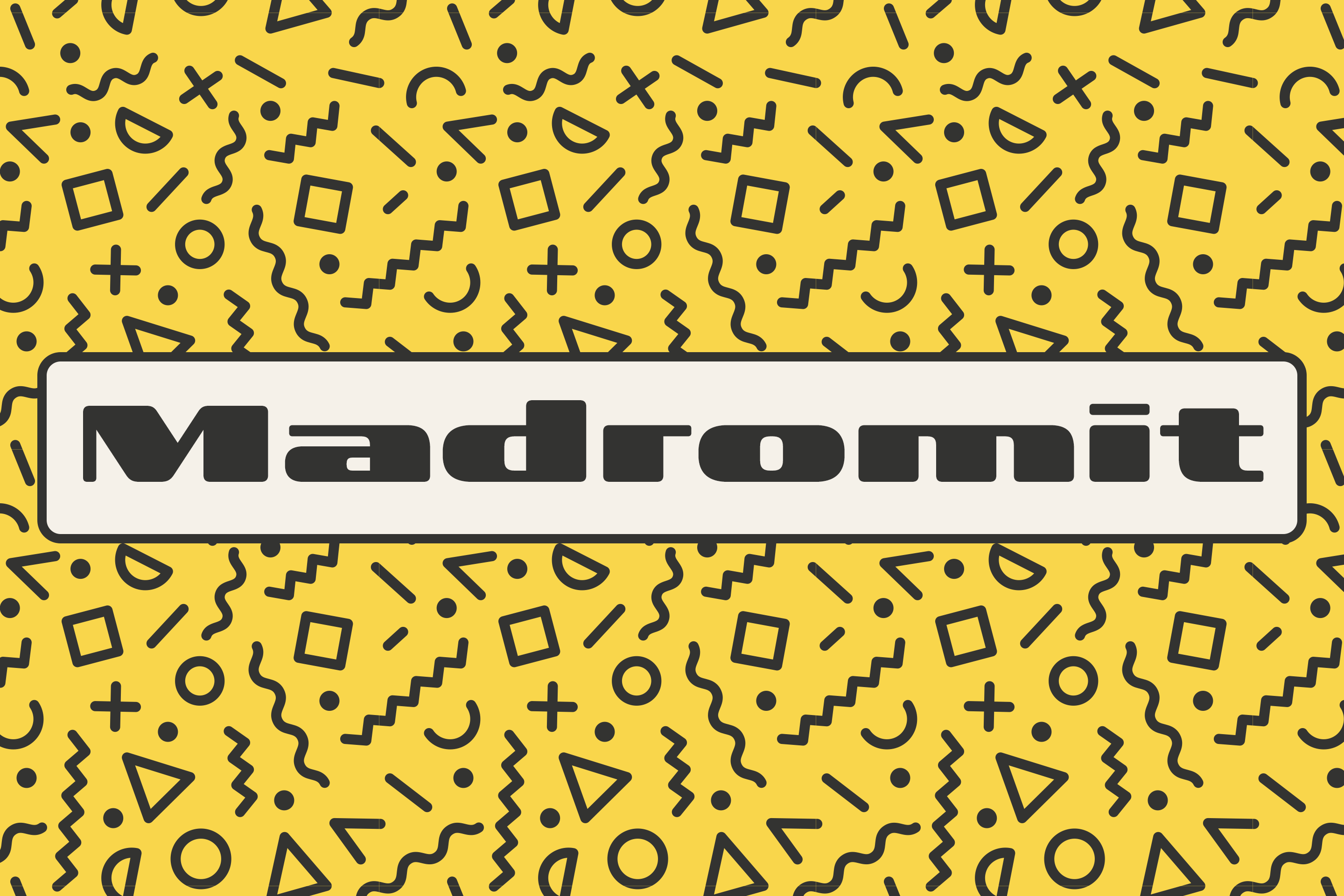
Madromit
Madromit is a font family. This typeface has five styles and was published by Dharma Type.
Madromit (pronounced ma-do-ro-mi) is a nostalgic display typeface inspired by the vibrant era of 1980s–1990s computer advertisements—a time many consider the most exciting in the history of digital technology. This style, often referred to as Primitive Digital Design, forms the core concept behind Madromit.
The typeface revives and reinterprets the visual language of that era through geometric construction, a grid-based design, and signature elements like rounded corners, oval bowls, and right-angled joints—all hallmarks of early digital aesthetics.
But Madromit brings more to the table. It also incorporates the elegance of classic engraving styles—specifically, the Open Style, a historic method used to emphasize letterforms through decorative inline carving.
By blending primitive digital design with classic engraving techniques, Madromit creates a fresh visual synergy, resulting in a look that’s both retro and unexpectedly new.
The Madromit family includes 5 styles designed for layered, color-stacking effects. It’s ideal for use in Photoshop, Illustrator, or any graphic design software that supports layer-based workflows. Think of each style as a printing plate—you can assign different colors to each layer for stunning visual combinations.
The “Standard” style serves as the base. To achieve the classic Open Style effect, simply stack one or more “Fill” layers on top of it.
Madromit Standard, Half Open, and Full Open style can be used solely.